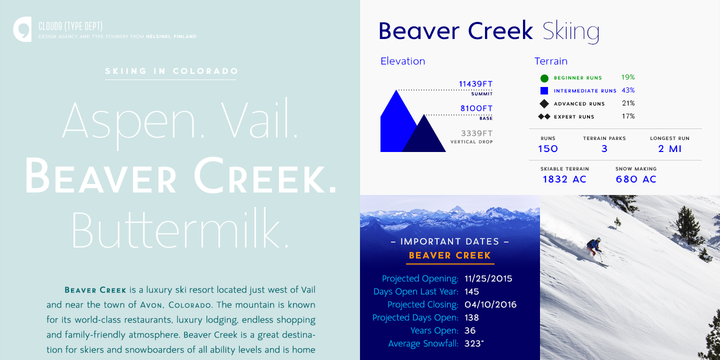
Agis
Agis Font Family
Agis is a modern geometric sans-serif family by Cloud9 Type Dept’s Jani Paavola. The whole family consists of 5 weights from ExtraLight to Bold. The range of styles provides legit options for title, headline and body text. Suitable for branding of any form.